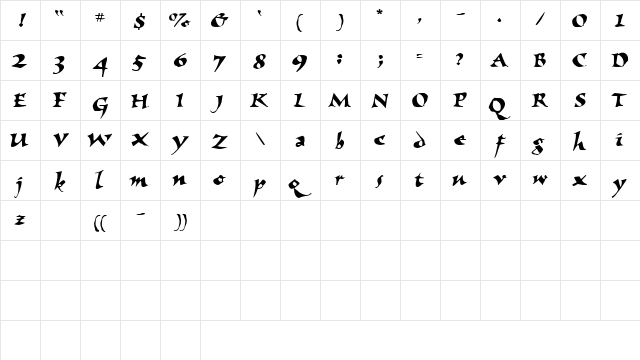
NomadScriptSSK Regular
Design Context for NomadScriptSSK Typeface
NomadScriptSSK brings a calligraphic fluidity to the page — its connecting strokes and expressive curves give it an unmistakably human quality.
Font Pairing: Combine NomadScriptSSK with a simple geometric sans for maximum contrast — the tension between flowing curves and clean structure is a classic typographic pairing.
Pro Tip: Pair NomadScriptSSK with a clean sans-serif for supporting text. The contrast between fluid script and geometric structure creates an elegant typographic hierarchy.